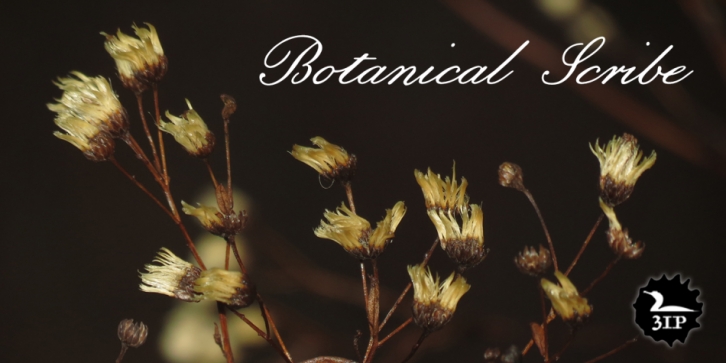
“The Raphael of Flowers†is what they called Pierre-Joseph Redoute a couple hundred years ago. The Belgian native became famous in France, where he painted floral watercolors for both Marie Antoinnette and Empress Josephine. But what cemented his legacy was his perfection of a stipple engraving technique that brought his art to the masses. Botanical Scribe is modeled after the neat, cursive hand-inscribed legends on these antique prints. Because it simulates true handlettering, the font retains a warm, organic quality not seen in fancy modern scripts while remaining both elegant and legible. (Its many ligatures lends to this authenticity.) Good for formal announcements or invitations. OpenType features include scores of ligatures, stylistic and contextual alternates, lining and old-style figures, floral ornaments, and complete Central/Eastern European alphabets.